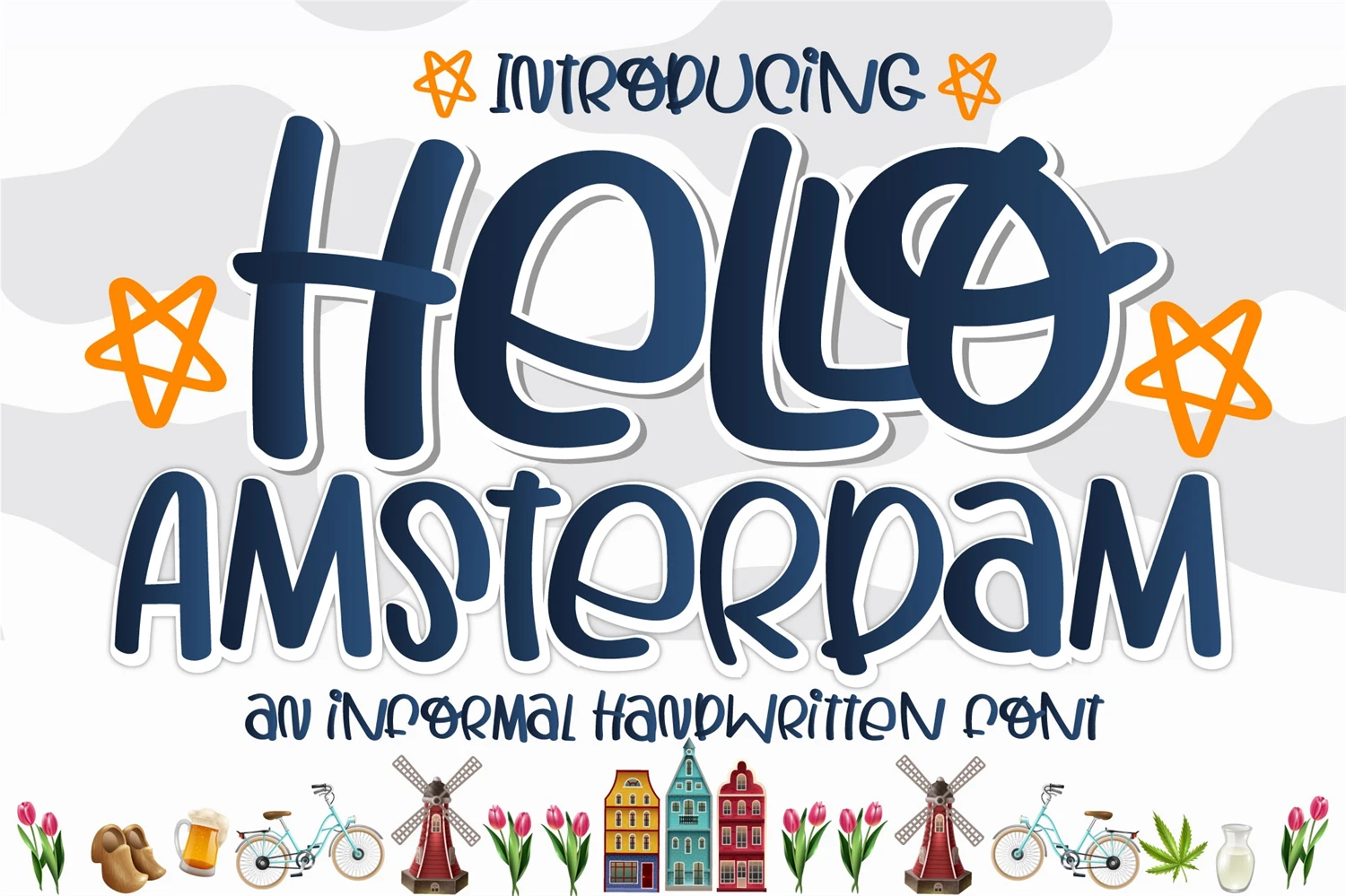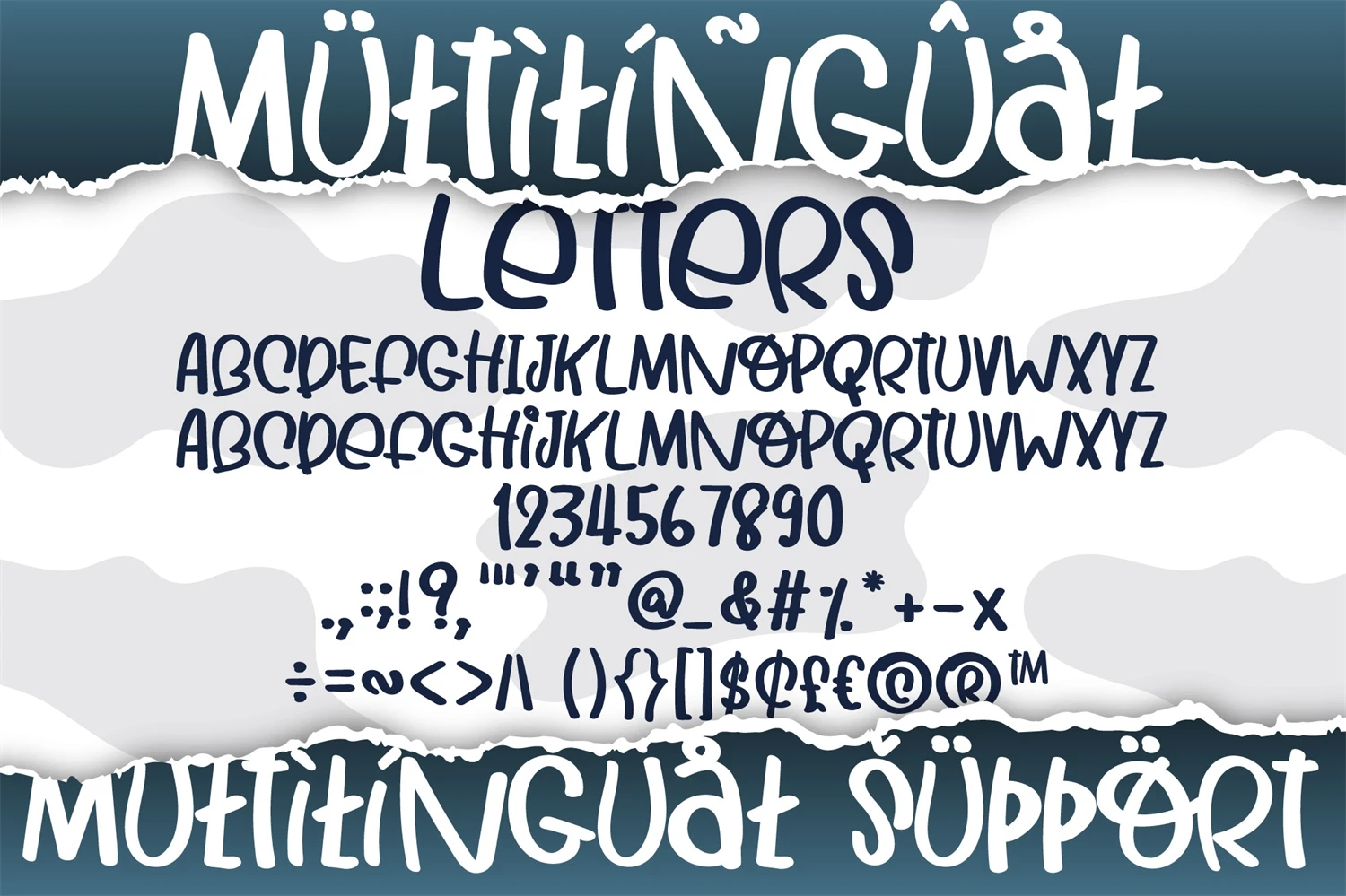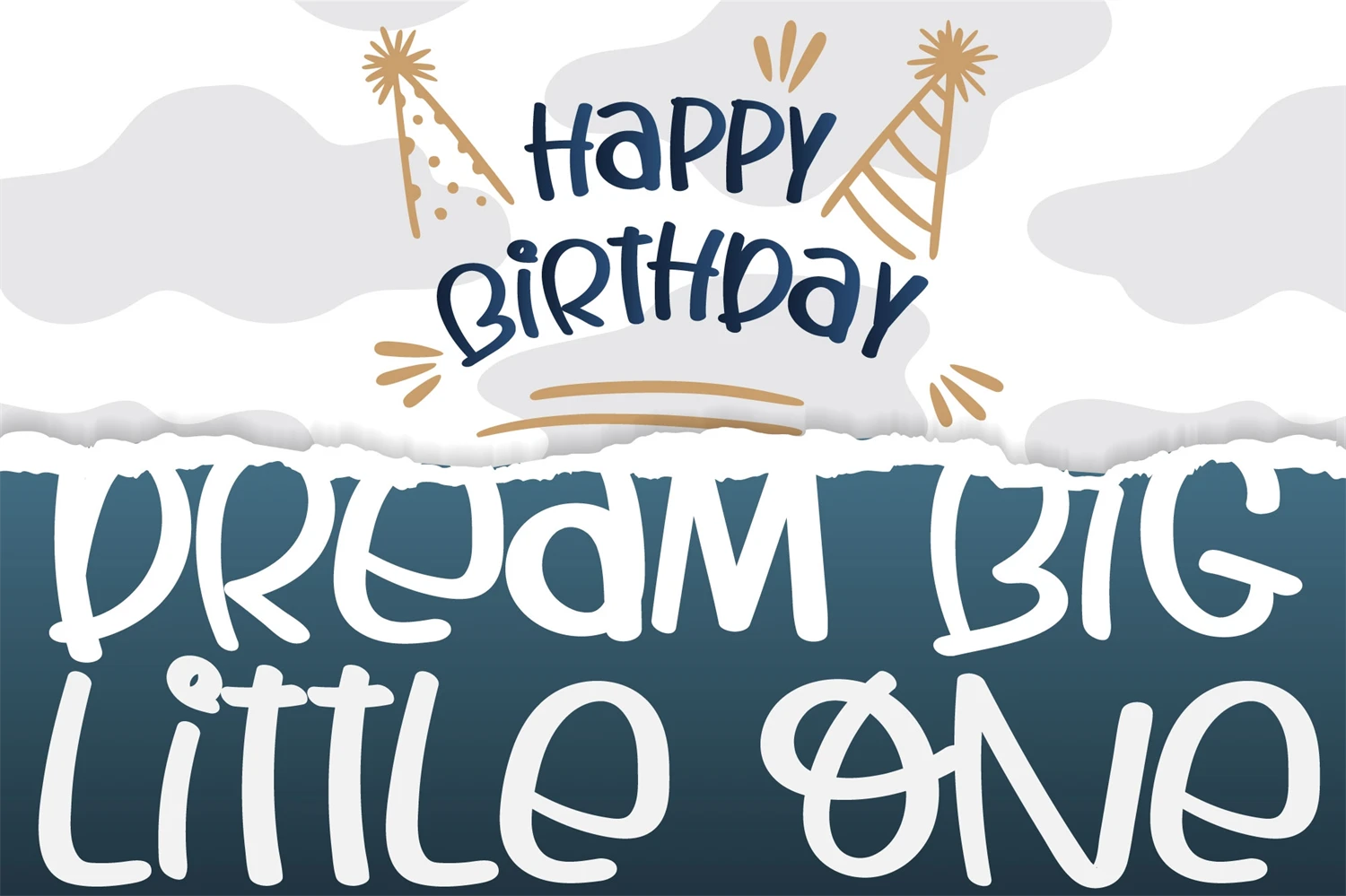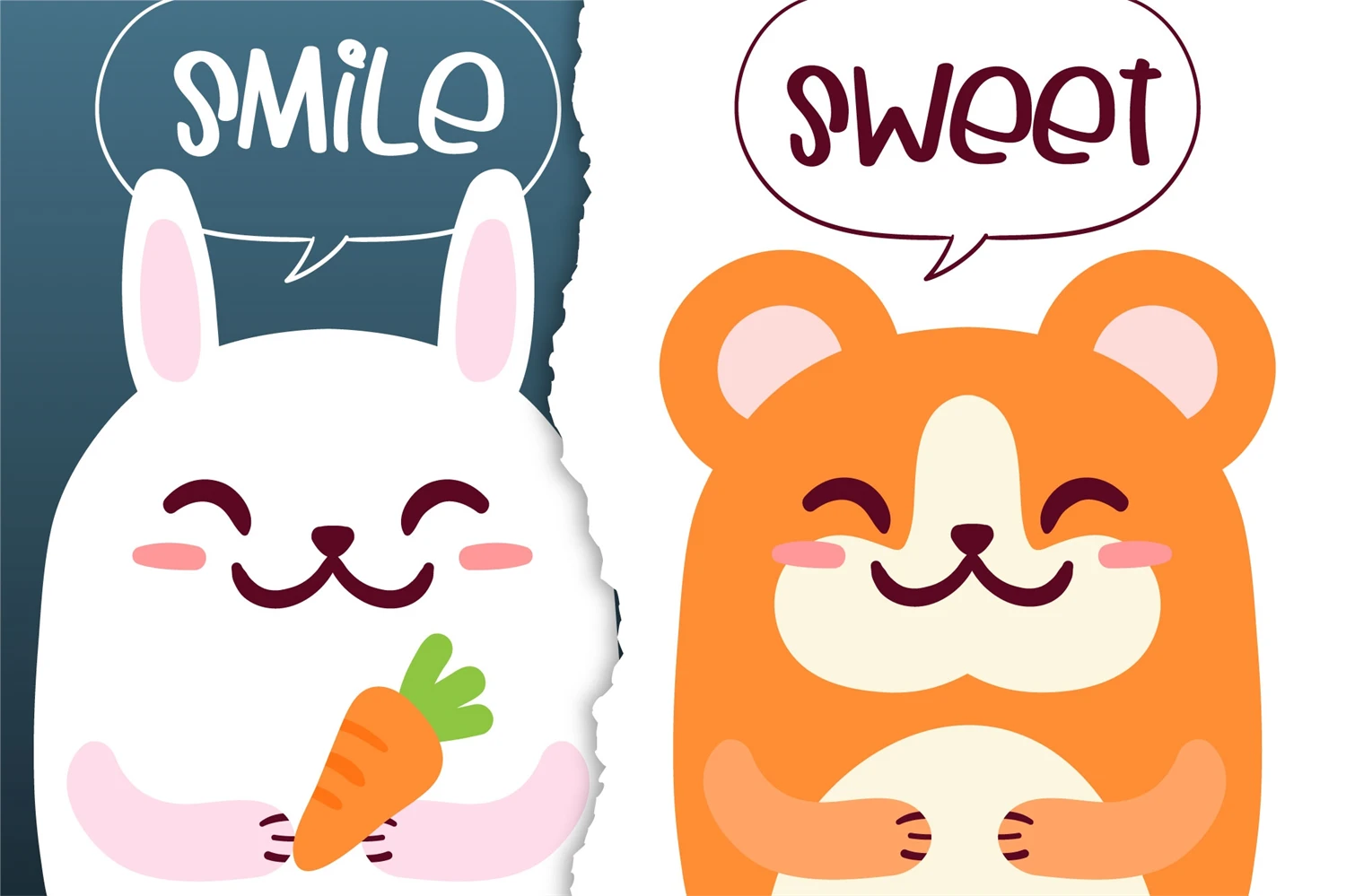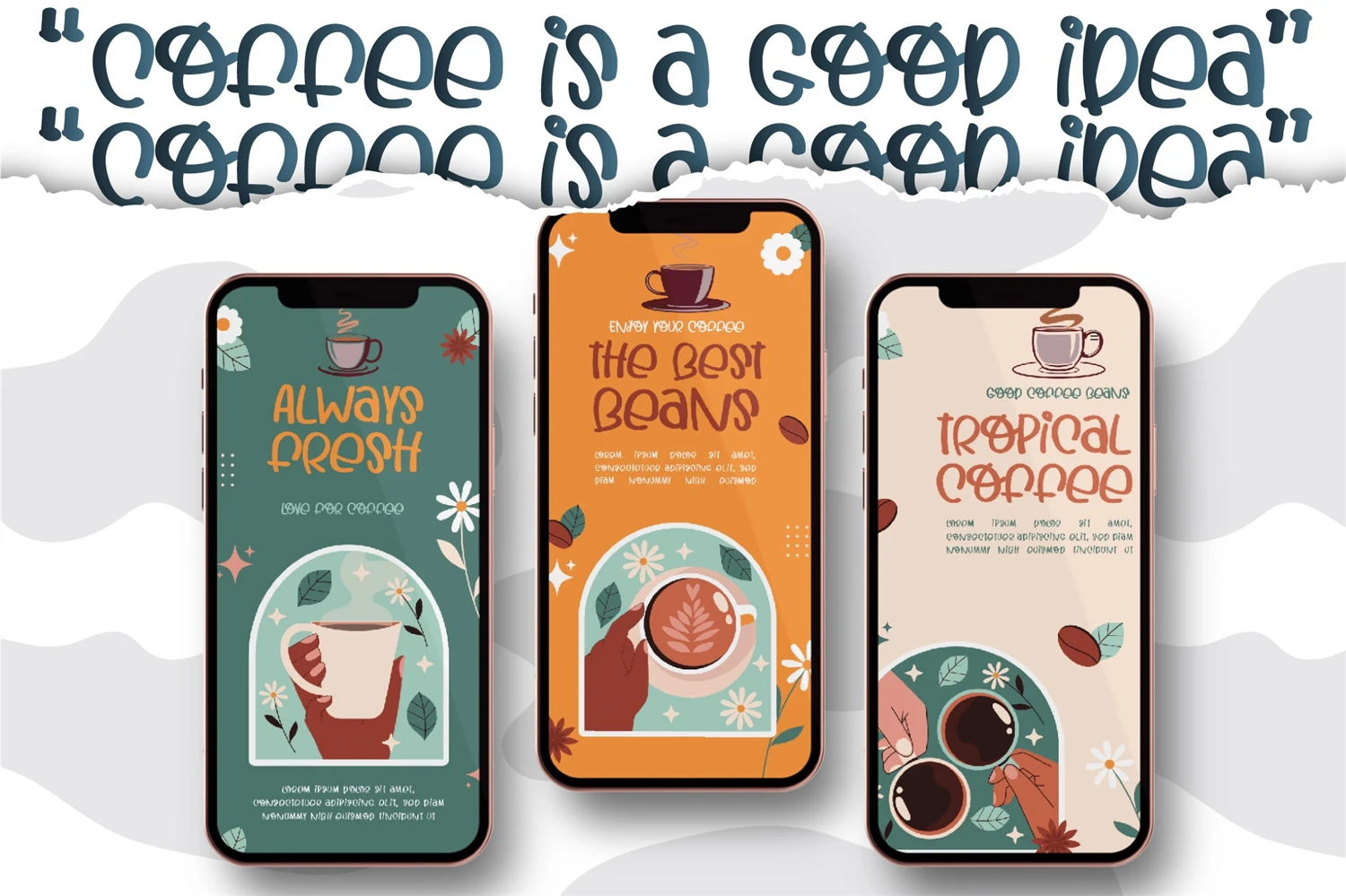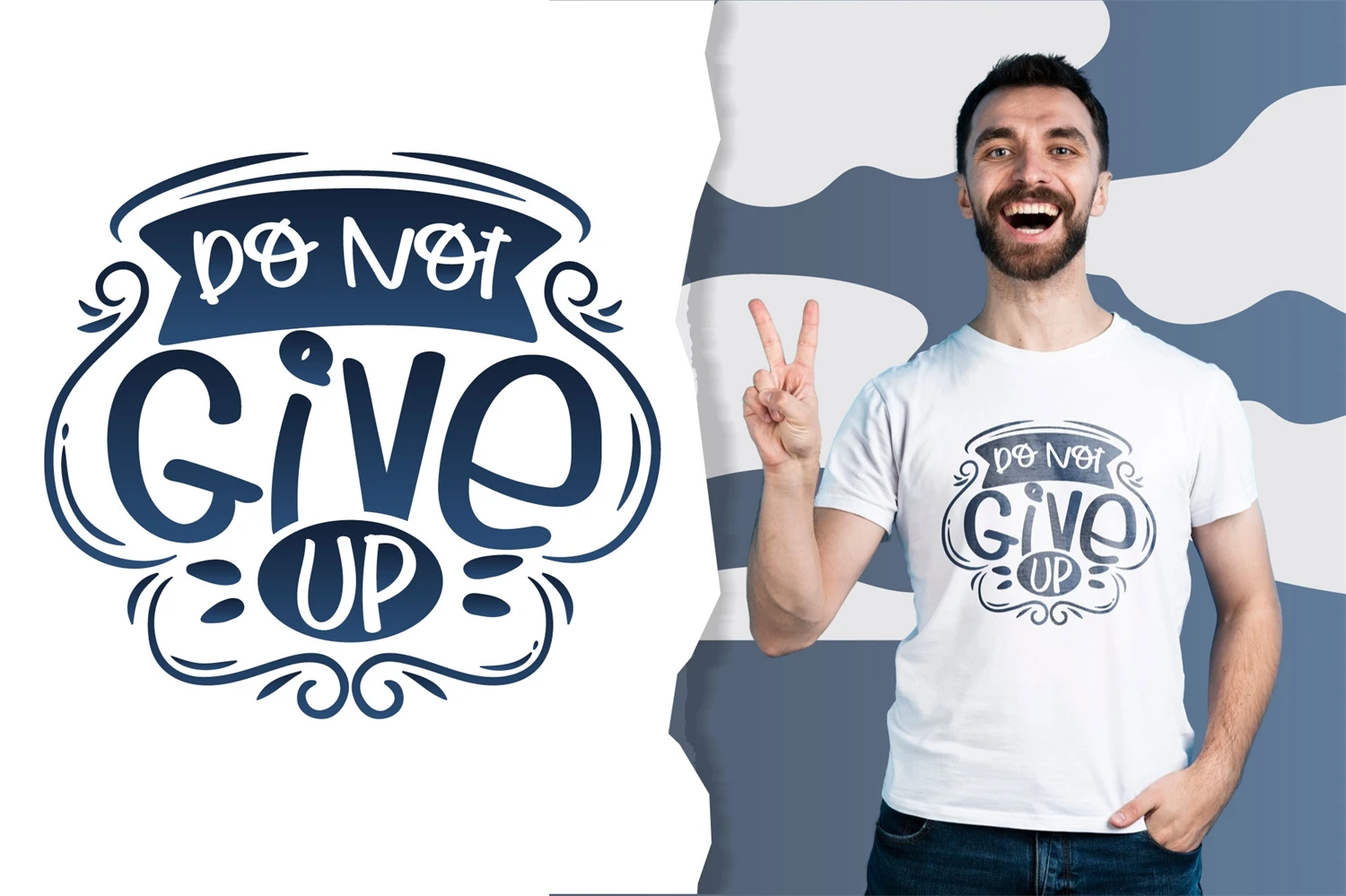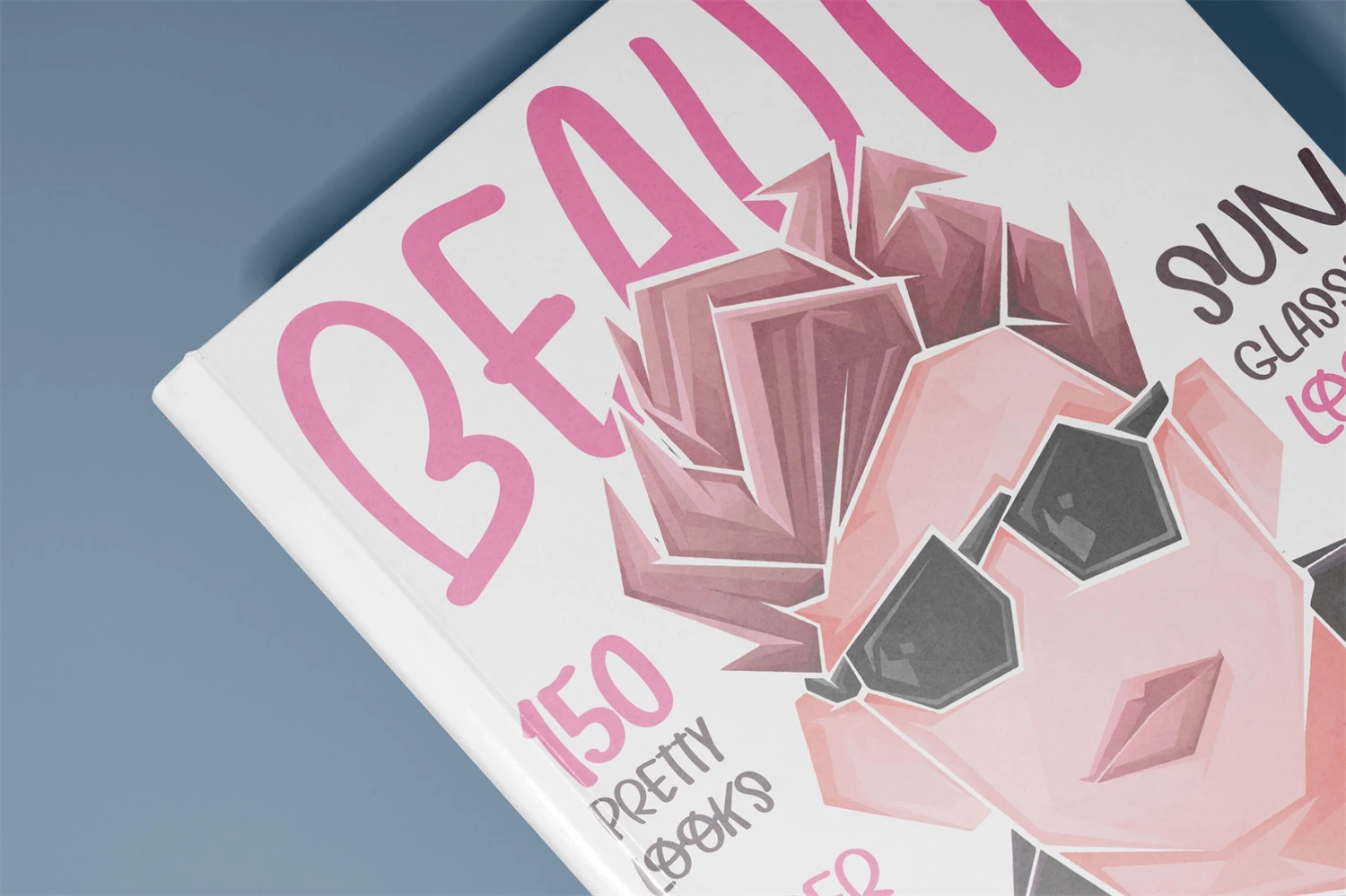
Hello Amsterdam Font is an informal, cute modern, fashionable, friendly, and trendy handwritten font. With its playful yet versatile style, Hello Amsterdam adds a delightful touch to any design project. Whether you're creating greeting cards, invitations, logos, social media posts, or anything in between, this font brings a casual and adept vibe to your work. Its handwritten charm and contemporary appeal make it a perfect choice for those seeking a touch of personality in their designs. Embrace the trendy vibes of Hello Amsterdam Font and let your creativity shine!